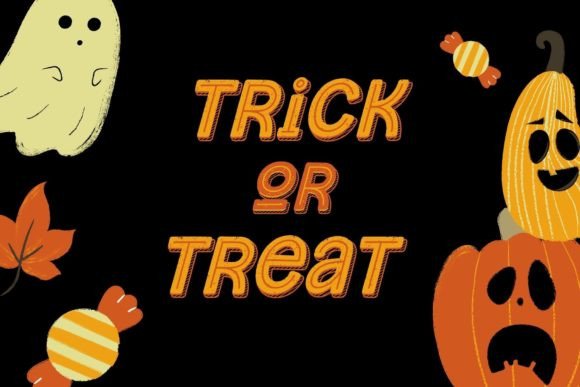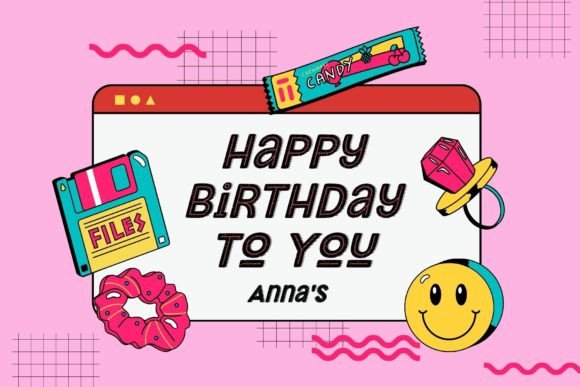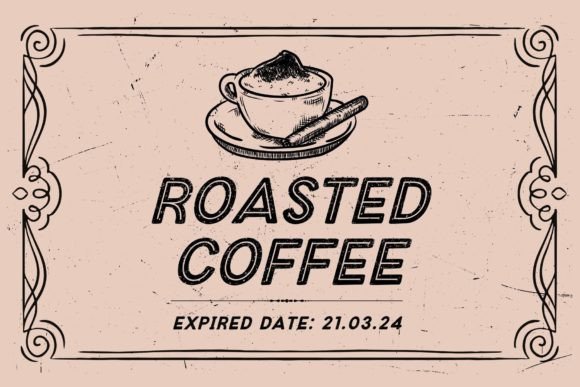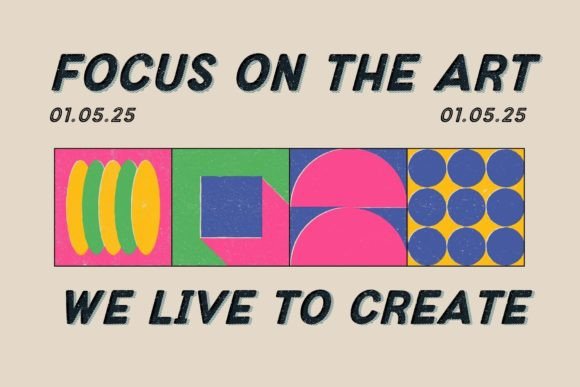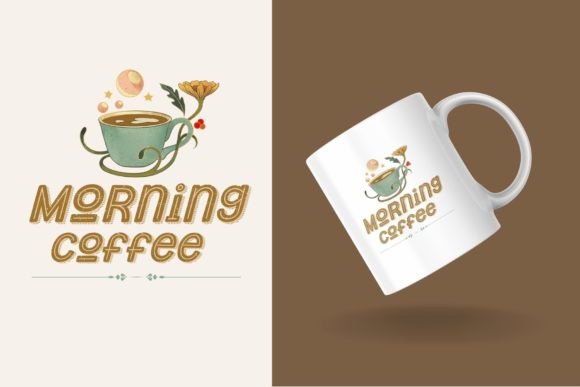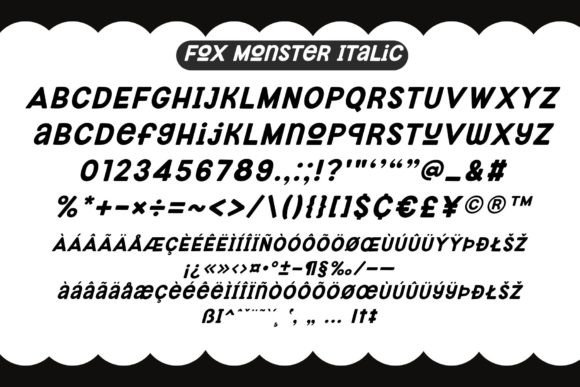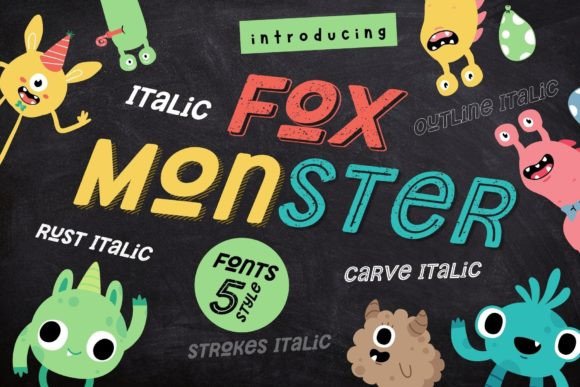
Unleash Your Creativity with Fox Monster Font: The Ultimate Display Font
Are you tired of using the same old fonts for your designs? Look no further than Fox Monster Font, a cool and fun italic display font that’s sure to add a captivating and energetic touch to your creations. Whether you’re a designer, crafter, or DIY enthusiast, this font is perfect for anyone looking to add a unique and playful twist to their projects.
What Makes Fox Monster Font So Special?
Fox Monster Font is a vibrant and expressive display font that’s designed to grab attention. Its main feature is its bold and italic design, which gives it a dynamic and energetic feel. This font is perfect for use in a variety of applications, including publications, menus, logos, business cards, and even printed on t-shirts. The possibilities are endless with Fox Monster Font!
Fox Monster Font is a dream come true for designers and crafters who are looking for a unique and versatile font to add to their arsenal. With its bold and playful design, this font is perfect for creating attention-grabbing headlines, t-shirt typography, banners, product labels, and more. Whether you’re working on a commercial project or a personal DIY project, Fox Monster Font is sure to make your designs stand out.
Key Features of Fox Monster Font
- Cool and Fun Design: Fox Monster Font has a unique and playful design that’s sure to add a touch of personality to your projects.
- Vibrant and Expressive: This font is designed to grab attention and make a statement.
- Italic Display Font: Fox Monster Font is an italic display font that’s perfect for creating bold and eye-catching headlines.
- Versatile: This font can be used in a variety of applications, from publications and menus to logos and t-shirts.
- Create a bold headline: Use Fox Monster Font to create a bold and eye-catching headline for your next design project.
- Design a t-shirt: Print Fox Monster Font on a t-shirt for a fun and playful design.
- Make a banner: Use Fox Monster Font to create a bold and attention-grabbing banner for your next event.
Why Choose Fox Monster Font?
There are many fonts to choose from, but Fox Monster Font stands out from the rest. Here are just a few reasons why:
- Unique Design: Fox Monster Font has a unique and playful design that’s sure to make your projects stand out.
- High-Quality: This font is designed to be high-quality and easy to read, even at large sizes.
- Versatile: Fox Monster Font can be used in a variety of applications, from commercial projects to personal DIY projects.
Fox Monster Font is a cool and fun italic display font that’s perfect for designers, crafters, and DIY enthusiasts. With its vibrant and expressive design, this font is sure to add a captivating and energetic touch to your projects. Whether you’re looking to create attention-grabbing headlines, t-shirt typography, banners, or product labels, Fox Monster Font is the perfect choice. So why wait? Download Fox Monster Font today and unleash your creativity!